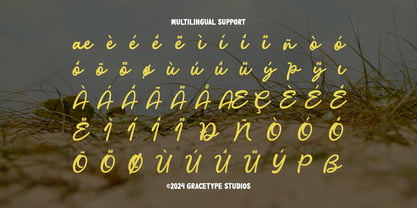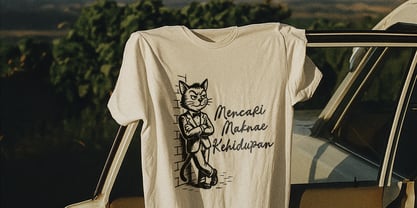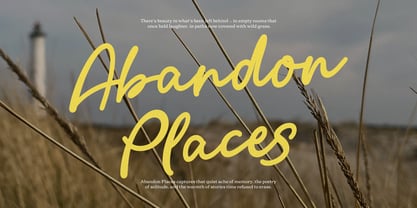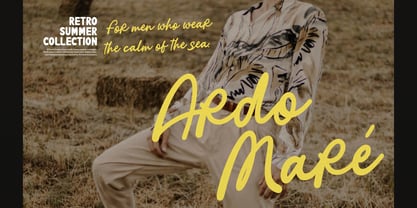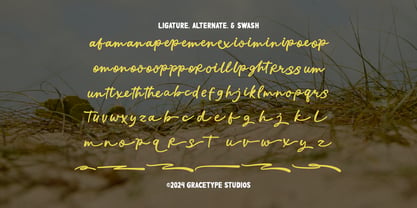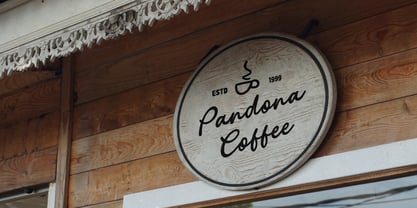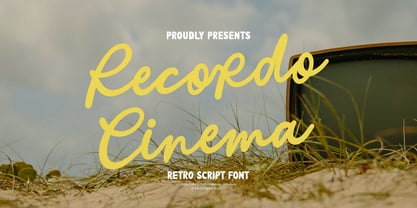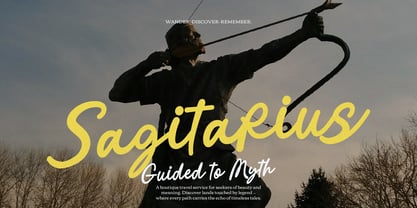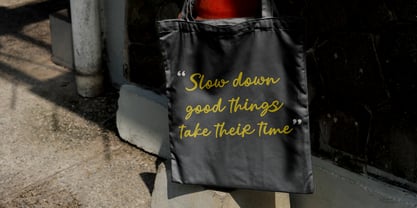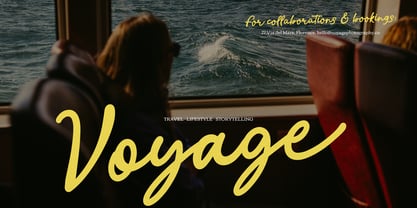
Recordo Cinema
by Tini Fitriani
The Recordo Cinema Font Family was designed by and published by Tini Fitriani. Recordo Cinema contains 2 styles and family package options. More about this family
Recordo Cinema | Retro Script Font, from Gracetypestudio, suitable for any projects such as: logos, branding projects, homeware designs, product packaging, mugs, quotes, posters, shopping bags, t-shirts, book covers, name card, invitation cards, greeting cards, label, photography, watermark, special events, and all your other lovely projects that need a Retro Script taste.